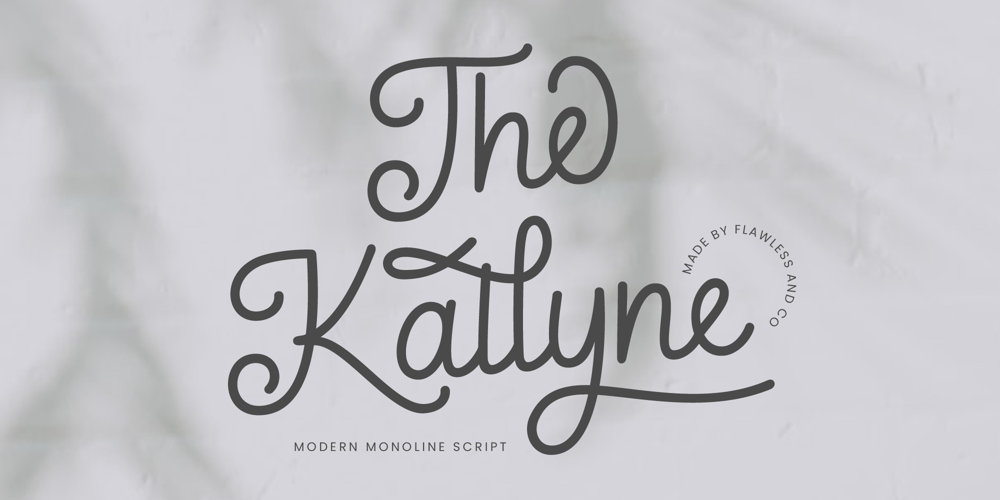
The Kallyne
The Kallyne font
The Kallyne Font Family was designed by Achmad Yani and published by Flawlessandco. The Kallyne contains 1 styles and family package options. Introducing “The Kallyne” – A Modern Monoline Script Font. Experience the fusion of modern simplicity and timeless style with “The Kallyne,” a contemporary monoline script font that adds a touch of elegance and versatility to your designs.There’s some connected letters and some alternates that suitable for any graphic designs such as branding materials, t-shirt, print, business cards, logo, poster, t-shirt, photography, quotes .etcThis font support for some multilingual. Also contains uppercase A-Z and lowercase a-z, alternate character, numbers 0-9, and some punctuation.If you need help, just write me! Thanks so much for checking out my shop!